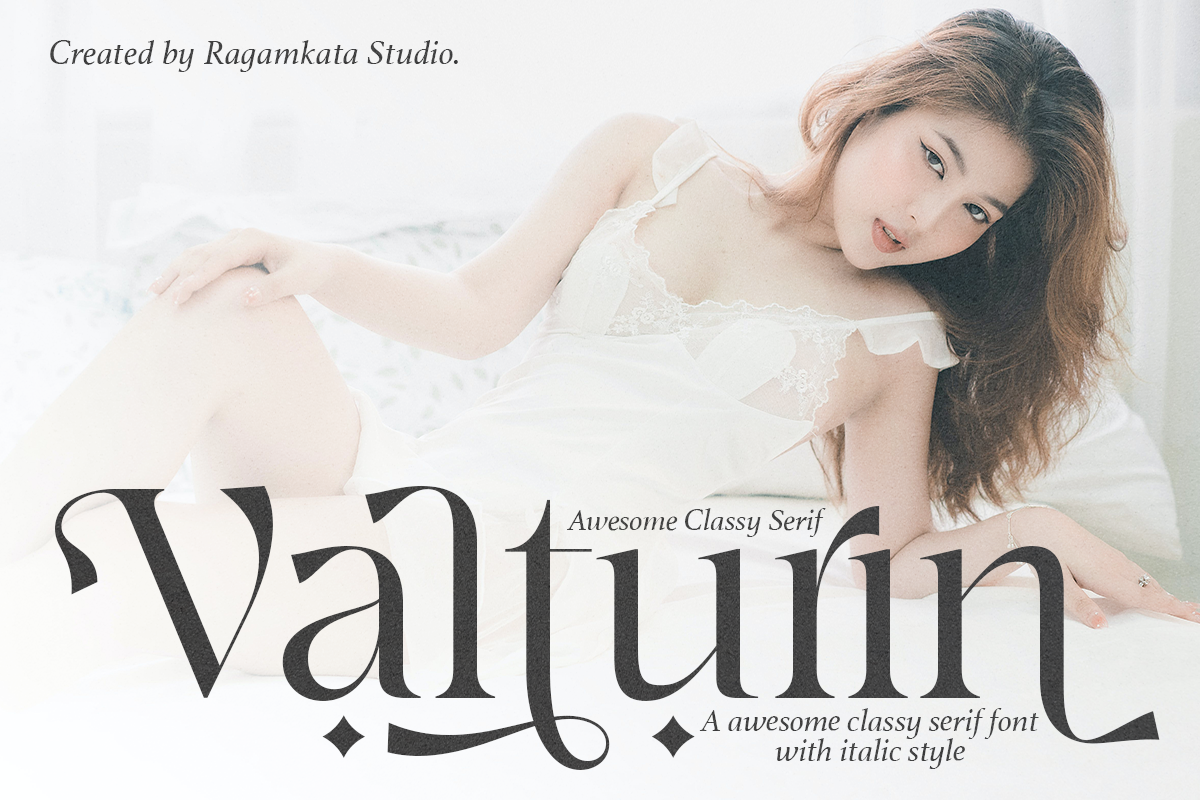
Valturin - Beautiful Minimalist Font Free Download
Valturin - Beautiful Minimalist Font Free Download is a sleek and refined typeface designed to embody simplicity and elegance. With its clean lines, subtle curves, and balanced spacing, Valturin is perfect for modern branding, editorial layouts, fashion lookbooks, minimalist logos, and upscale packaging. It radiates professionalism while keeping your design visually calm and effortless.
Whether you're working on digital content or printed materials, Valturin adapts beautifully, offering clarity without sacrificing style. Its versatility makes it ideal for both headlines and body text across a wide range of creative projects.